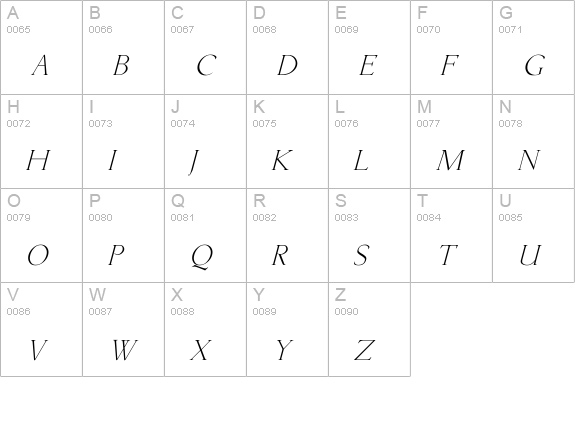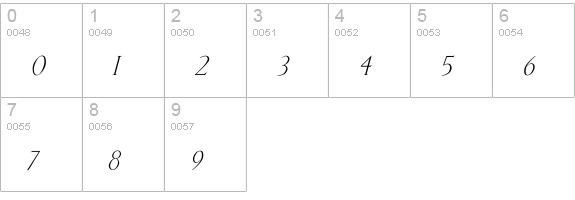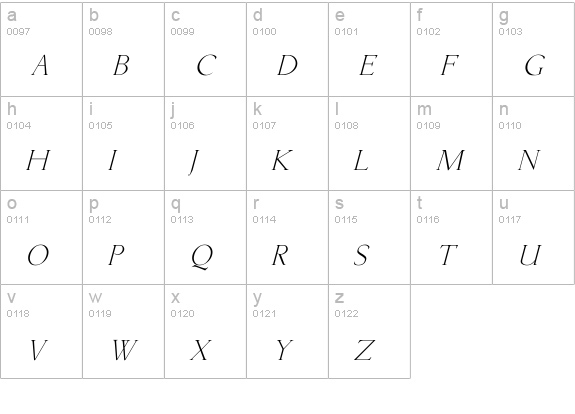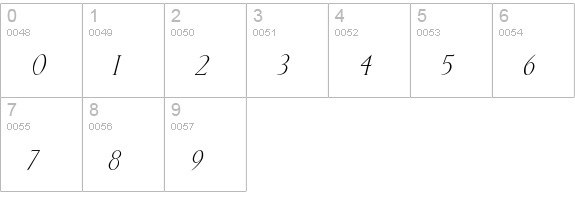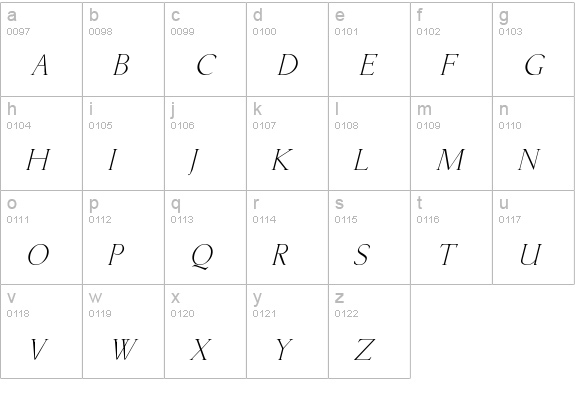
Lichtner Italic Font Details
Lichtner Italic is a distinctive, italic variant in the Lichtner typeface family \xE2\x80\x94 well suited to design and typography projects.
Lichtner Italic is a sophisticated and elegant typeface that exudes a sense of modernity and style. With its sleek and flowing letterforms, this font is perfect for adding a touch of sophistication to your design projects. The slanted appearance of the italic style adds a dynamic and unique flair to any text, making it stand out with a touch of class. What's even better is that Lichtner Italic is available for free download at FontsMarket.com. This means you can easily access this beautiful font and incorporate it into your creative endeavors without any cost. Whether you're working on branding, editorial design, or any other project that requires a touch of finesse, Lichtner Italic is sure to elevate your work to the next level. Download it today and see the difference it can make in your designs.